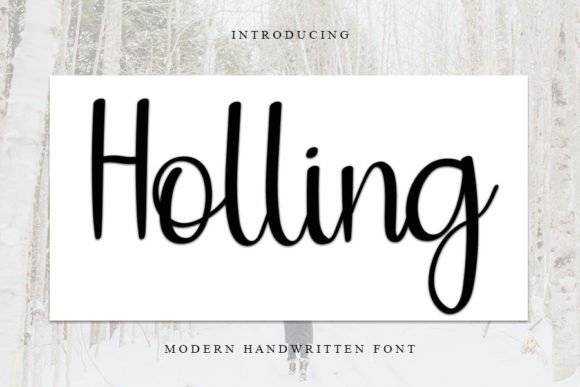
Prepare yourself to be captivated by Holling Font, a delightful creation by NYA Letter characterized by its charming handwritten style and modern touch. This font possesses an inherent elegance, boasting a spotless form and balanced structure that strikes the perfect balance between thin and thick strokes. Holling Font is not merely a font, it's an art form, meticulously crafted to elevate the beauty of your creative endeavors.
Be it Christmas labels, enchanting invitations, heartwarming greeting cards, or captivating social media posts, Holling Font is your trusted companion, adding a touch of sophistication and playfulness to every project. Its versatility knows no bounds, allowing you to effortlessly convey a spectrum of emotions, from heartfelt sentiments to joyous celebrations.
Holling Font is not just a collection of characters; it's an ensemble of artistic expressions, each letter and symbol imbued with a unique personality. Witness the graceful curves of the lowercase letters, the playful swashes that add a touch of whimsy, and the meticulously crafted ligatures that seamlessly connect letters, creating a cohesive and visually striking flow.
Embrace the nostalgia of handwritten notes with Holling Font. Experience the joy of creating personalized designs that exude warmth and charm. Allow your creativity to flourish as you craft heartfelt messages, heartfelt invitations, and captivating social media posts that leave a lasting impression.
Holling Font is more than just a font; it's an investment in your creative potential. Unlock a world of possibilities and let your imagination run wild. Embrace the beauty of handwritten artistry and elevate your projects to new heights of elegance and sophistication.